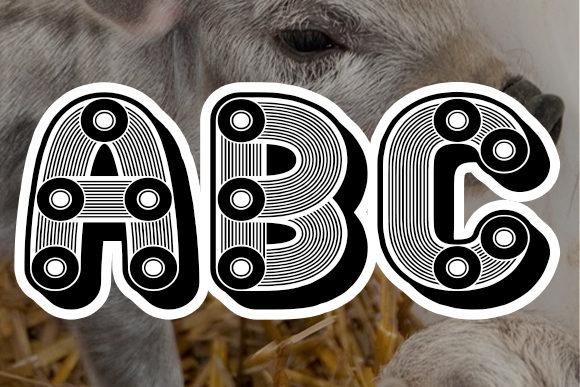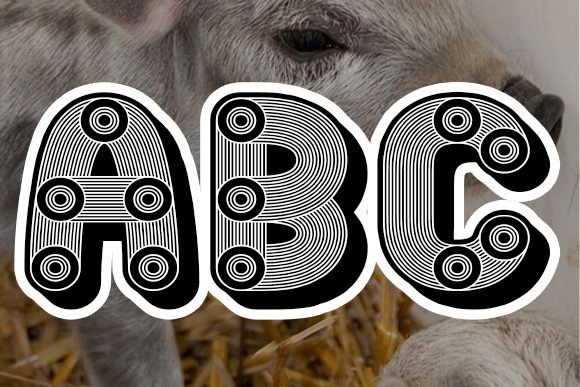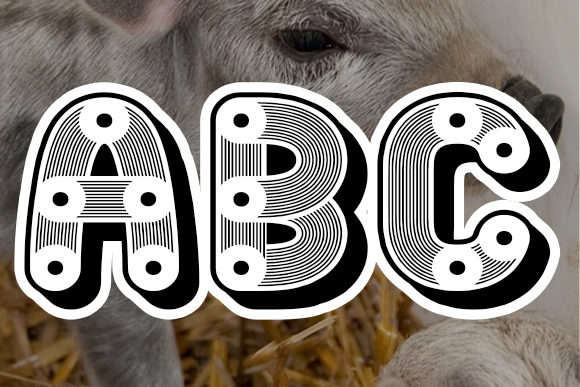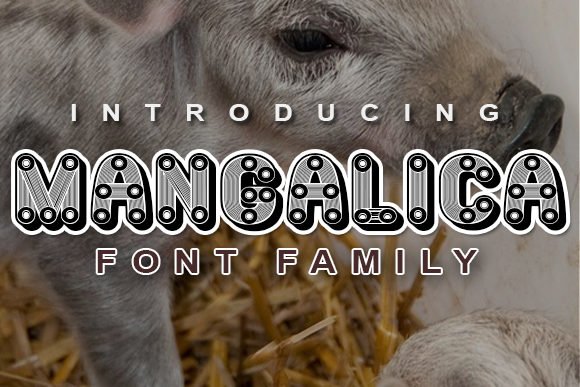
Introduction to Mangalica Font
Mangalica is a fun decorative font with a retro look.
It will look outstanding in any context, whether it’s being used on busy backgrounds or as a standalone headline .
Key Features of Mangalica Font
Why Choose Mangalica Font?
Mangalica Font offers exceptional quality and versatility, making it a valuable addition to your design toolkit. Whether you’re creating for personal projects or commercial use, Mangalica Font delivers professional results.